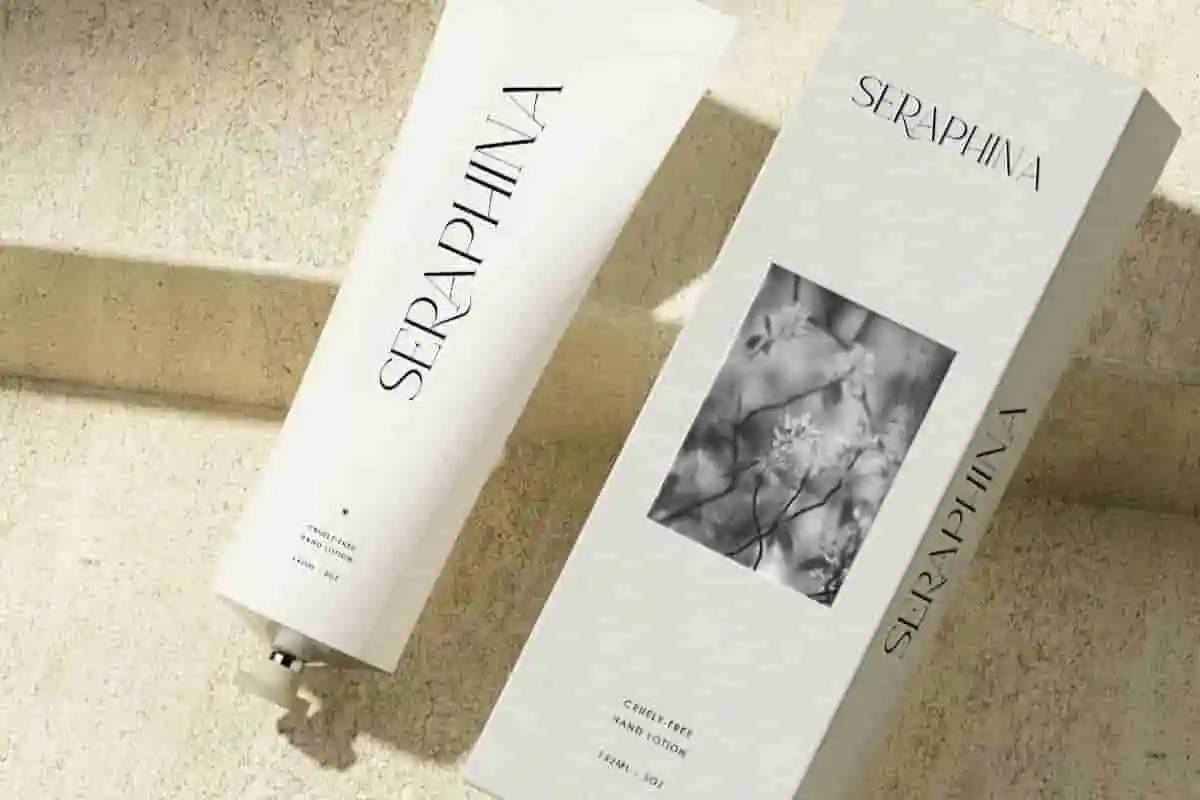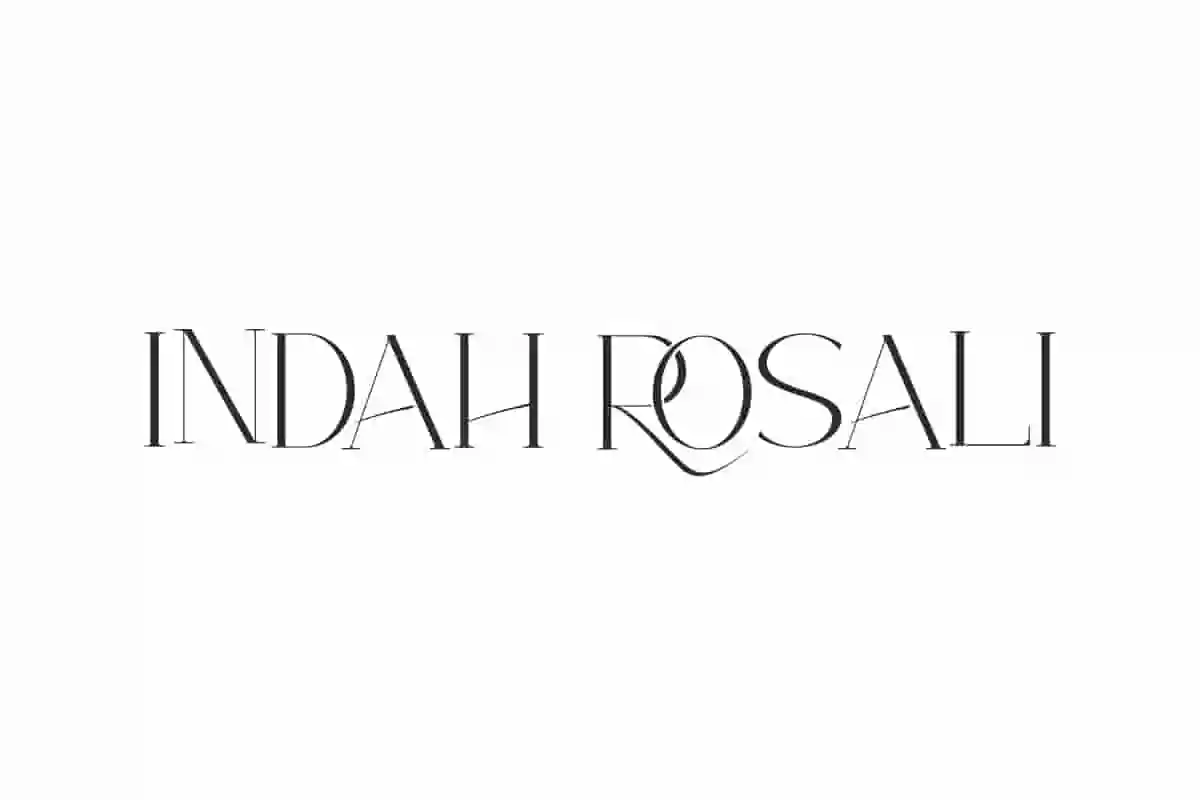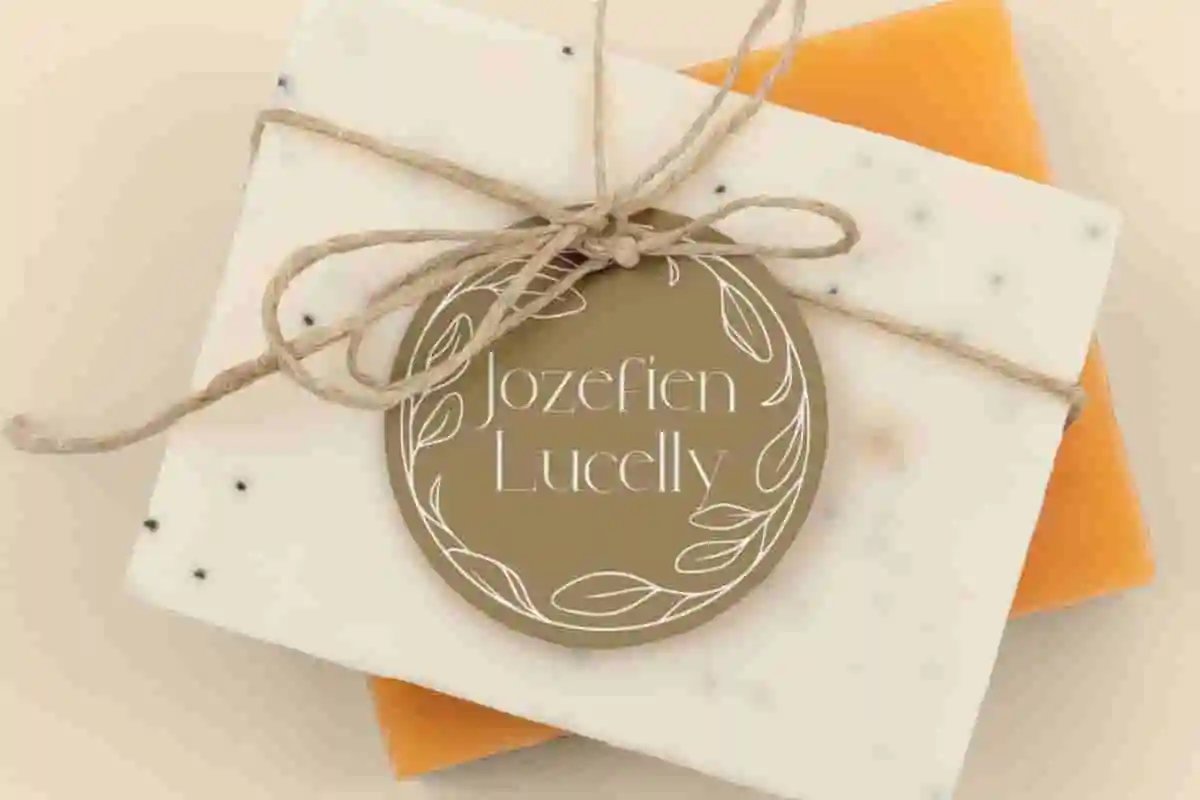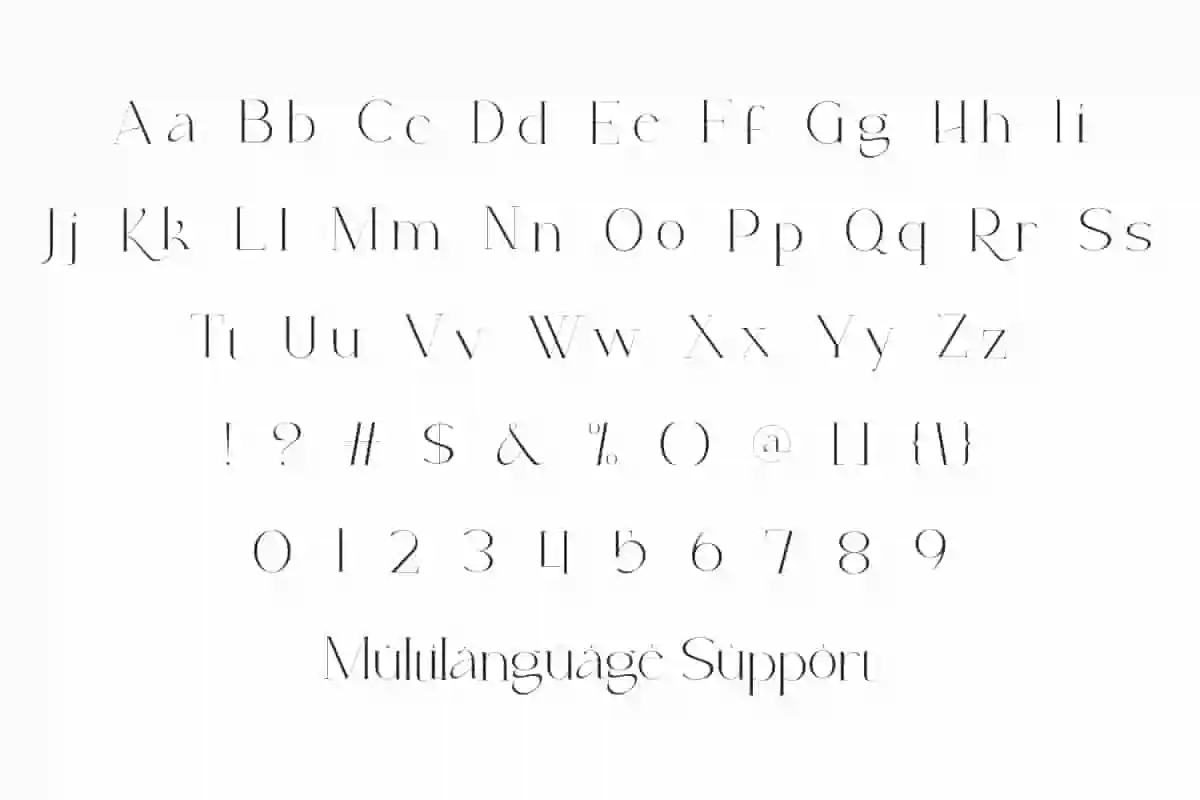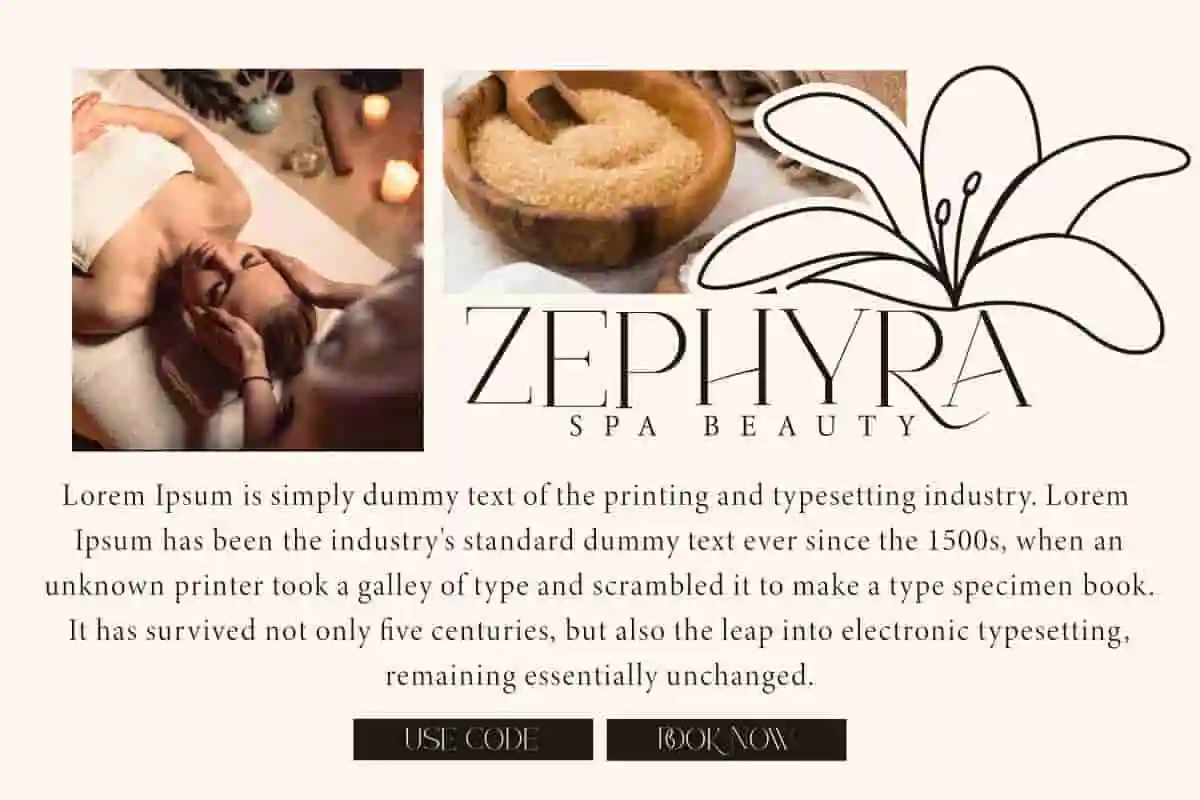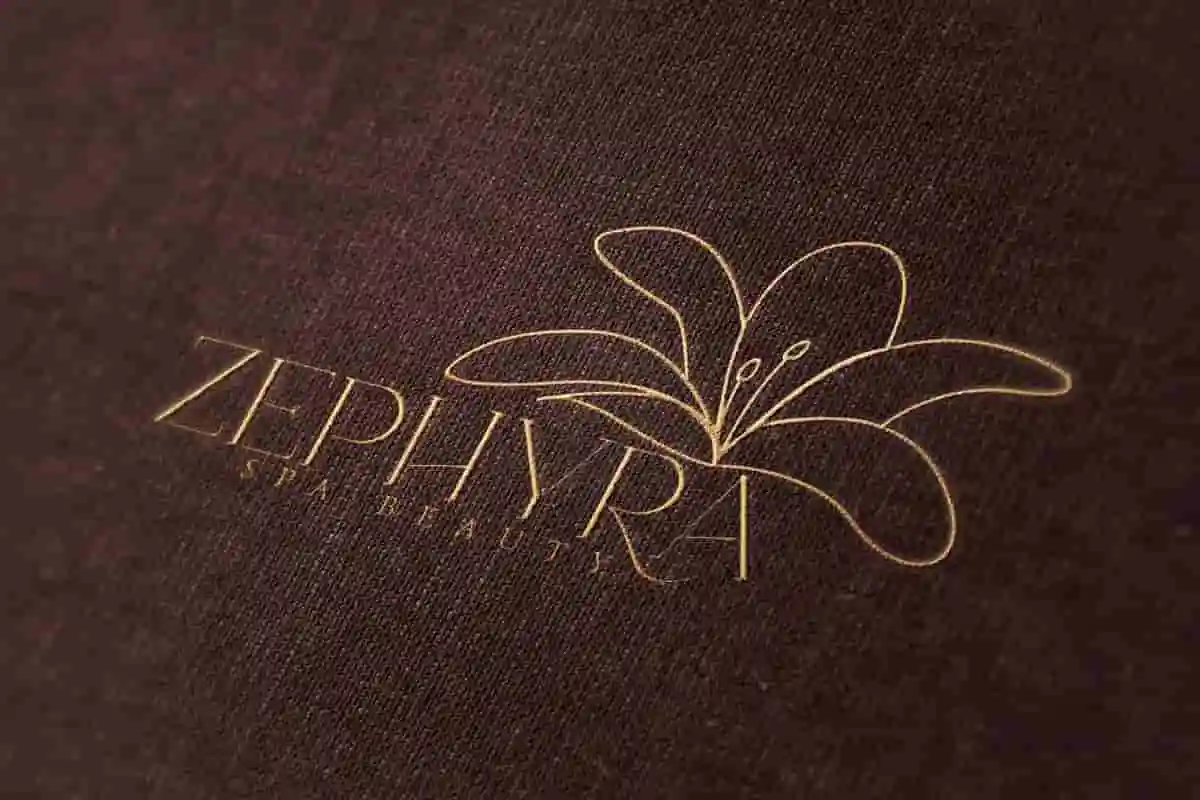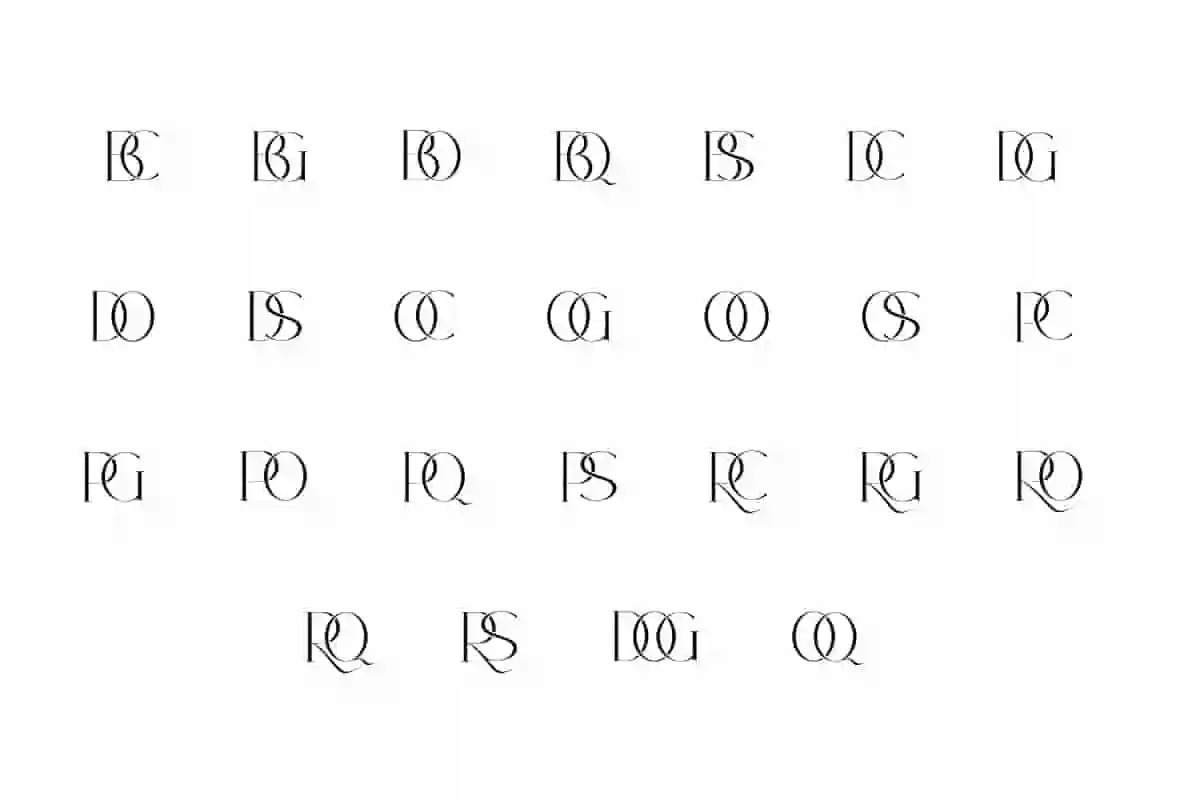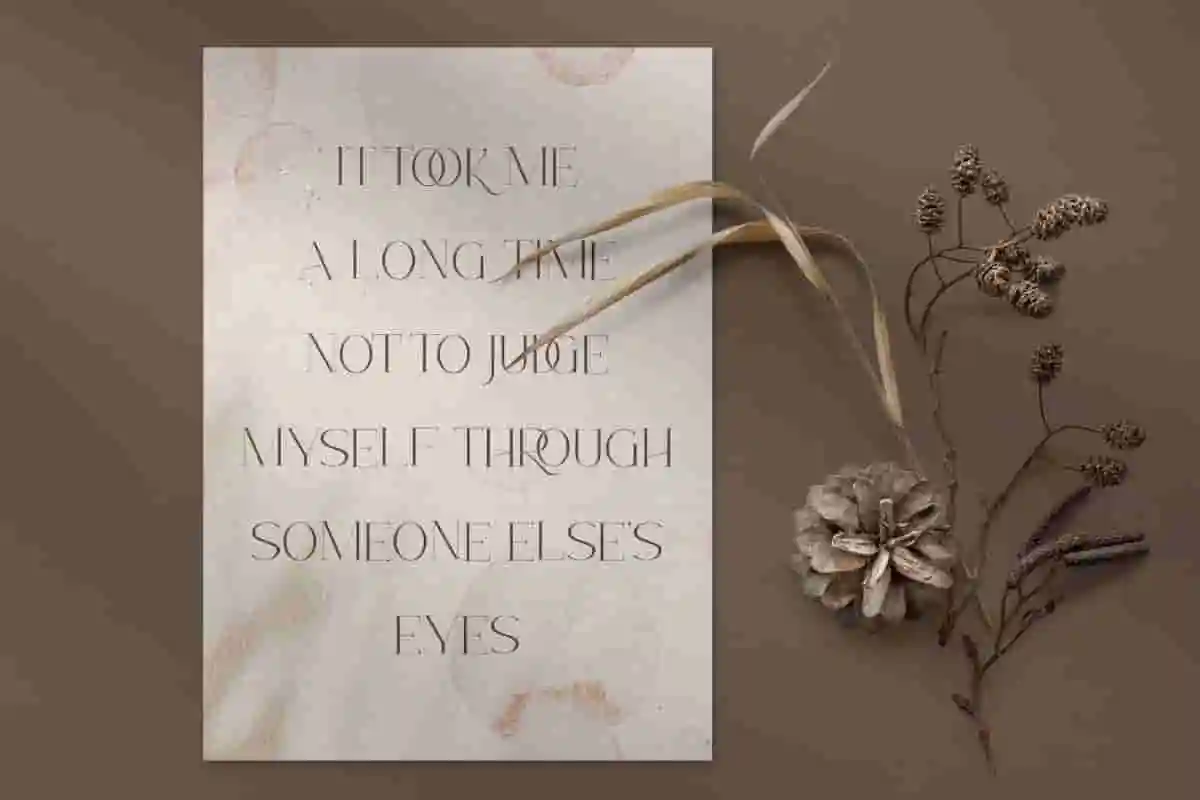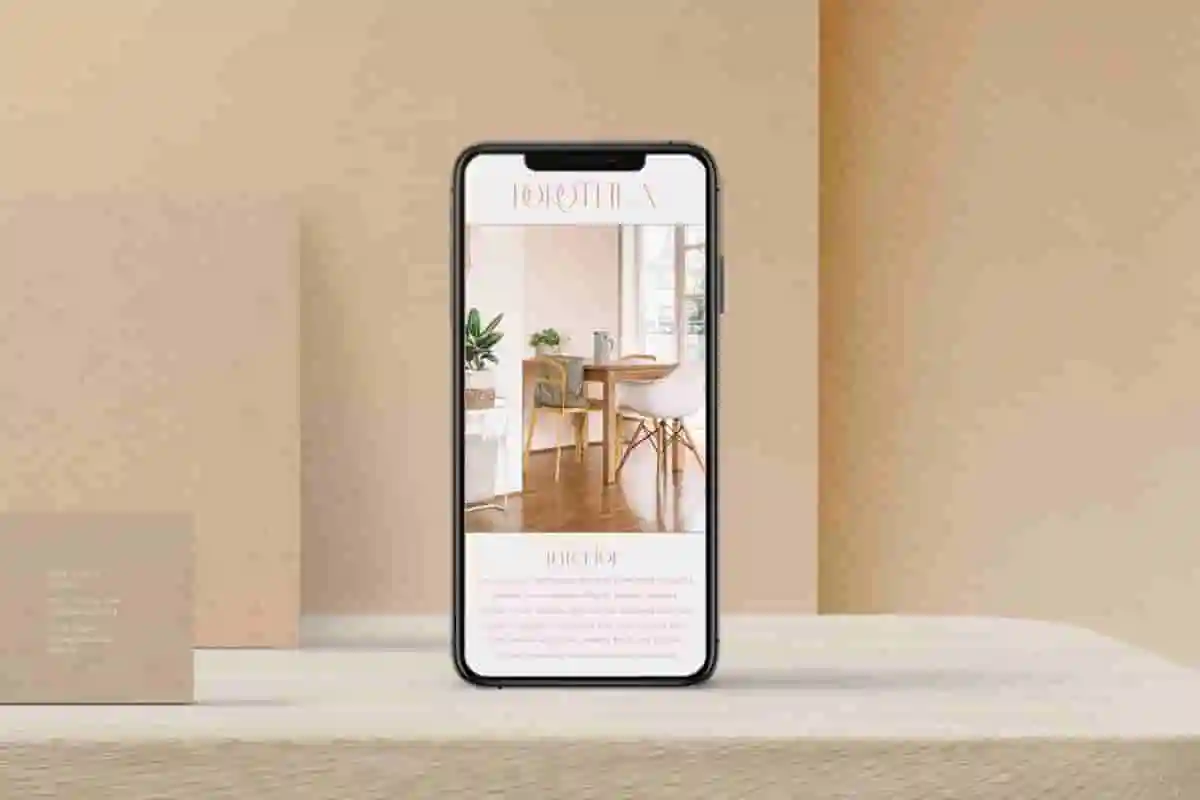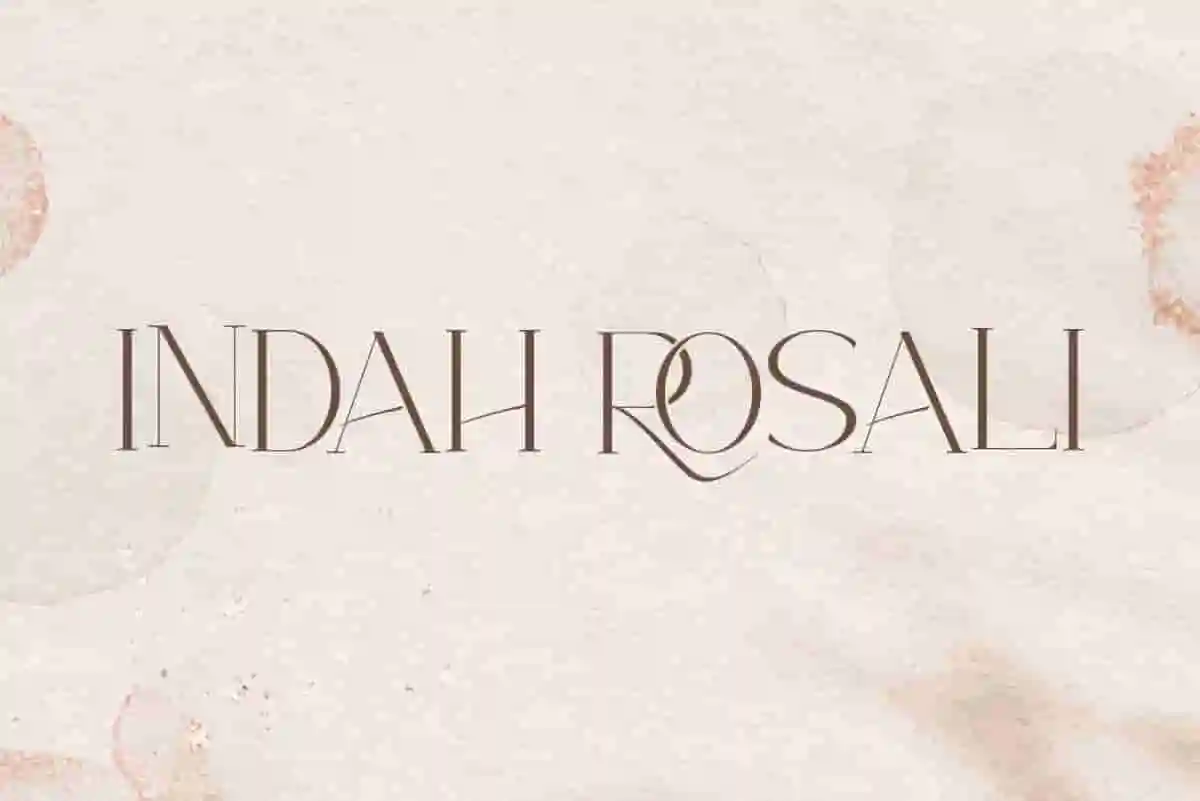
Indah Rosali Font is a feminine minimalist serif display font that is equipped with charming Ligature. This makes the font have its own unmatched beauty value!
Indah Rosali Font is a minimalist elegant serif display font that gives a luxurious and eye-catching impression. Equipped with beautiful Ligatures that are perfect to combine together. This font will be perfect for use in blogs, embossed design, flyer, headers, headline, label tag, logo, mockup, poster, product packaging, quotes, screen print, stickers, title, website and many more.
Indah Rosali Font includes full set of Uppercase and Lowercase Basic Characters, Numbers, Punctuation, Symbols and Ligature. This font has a modern thin shape, creating a sophisticated and friendly typography. Perfect for accessories and gift, advertising, beautician, handicraft, home furniture, interior design, luxury resort, photography, real estate, skincare, spa beauty, etc.